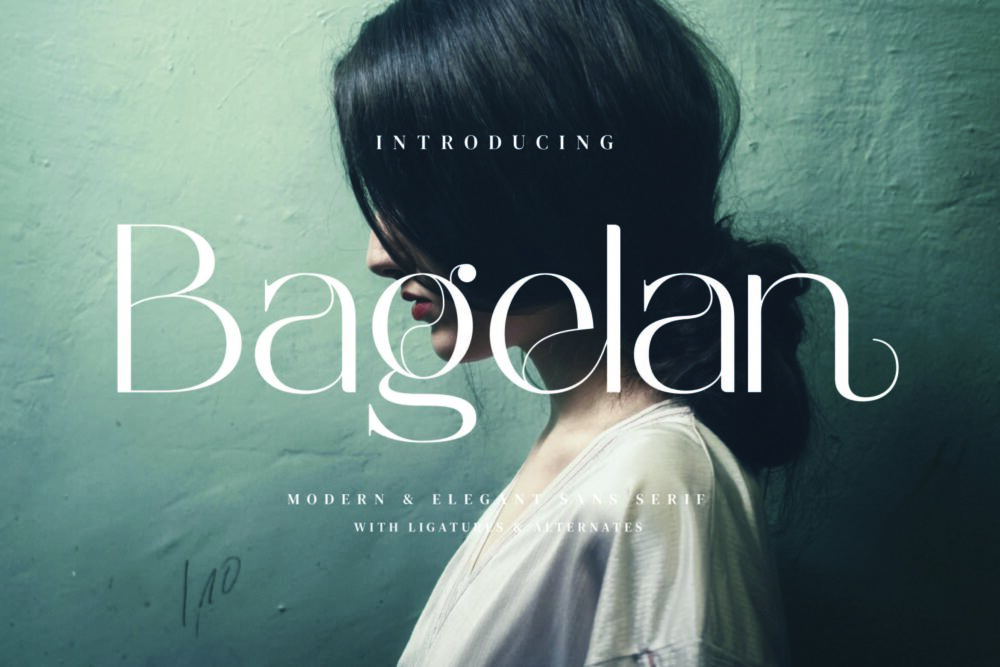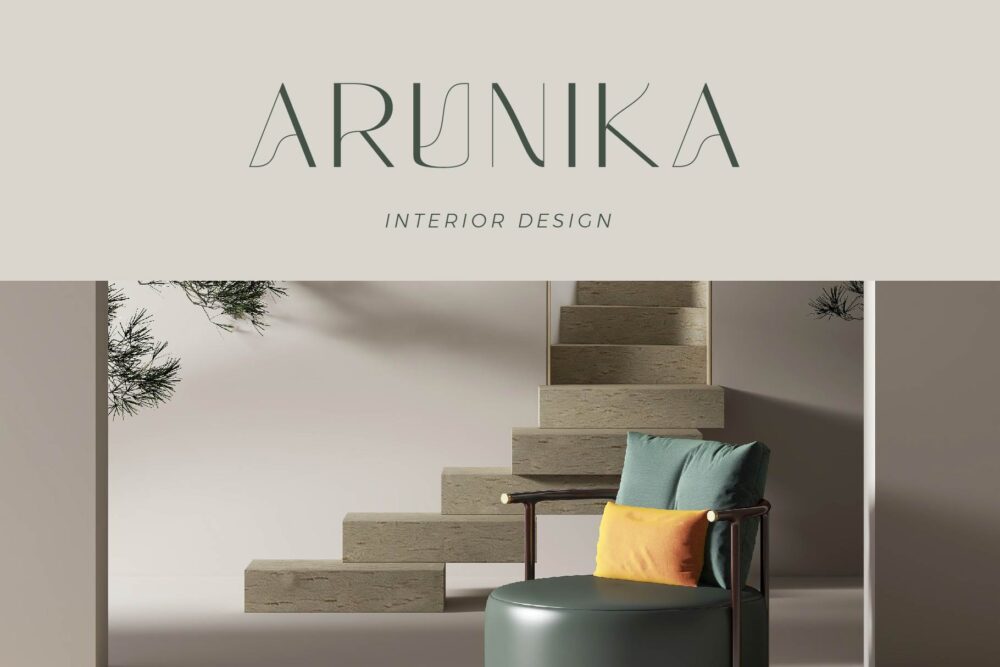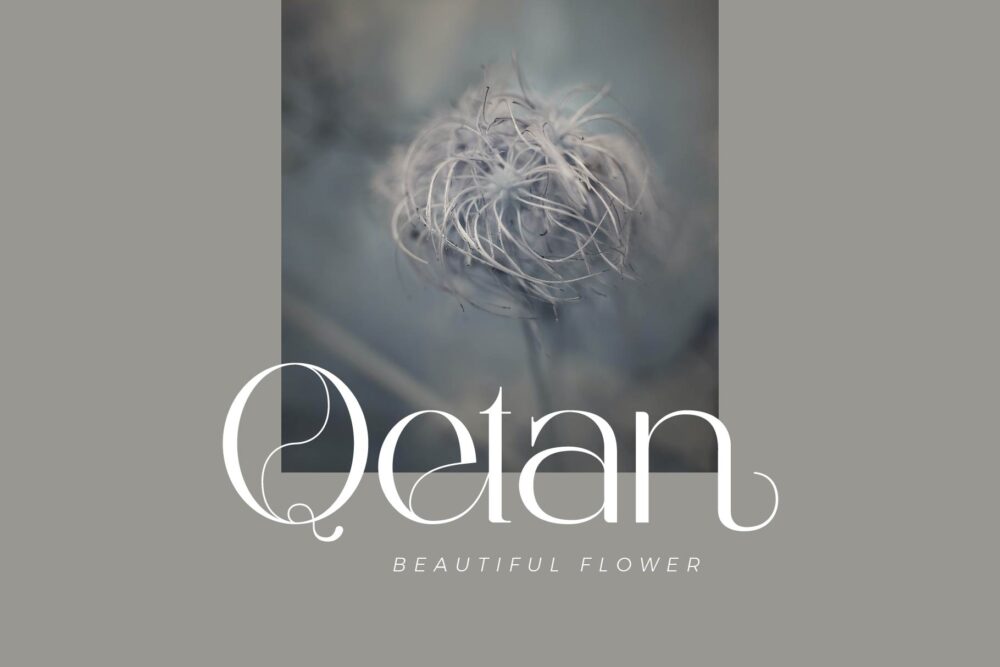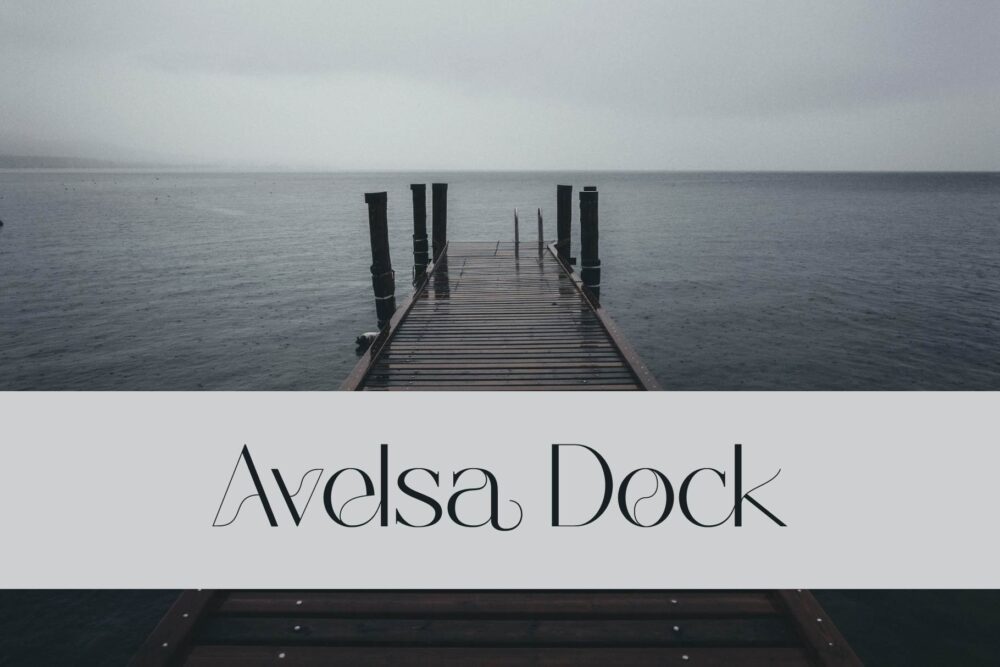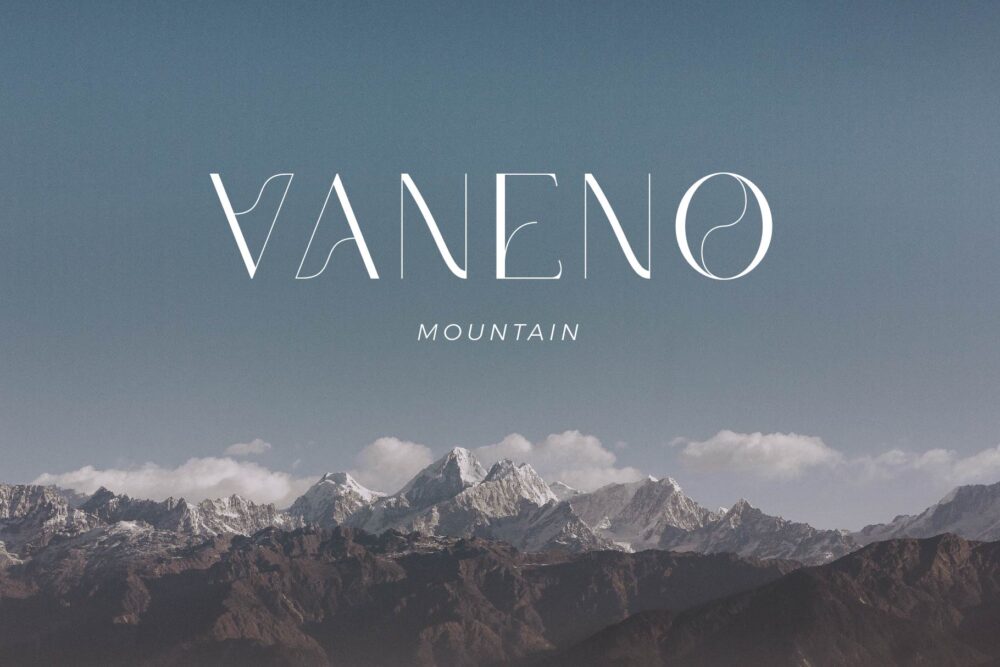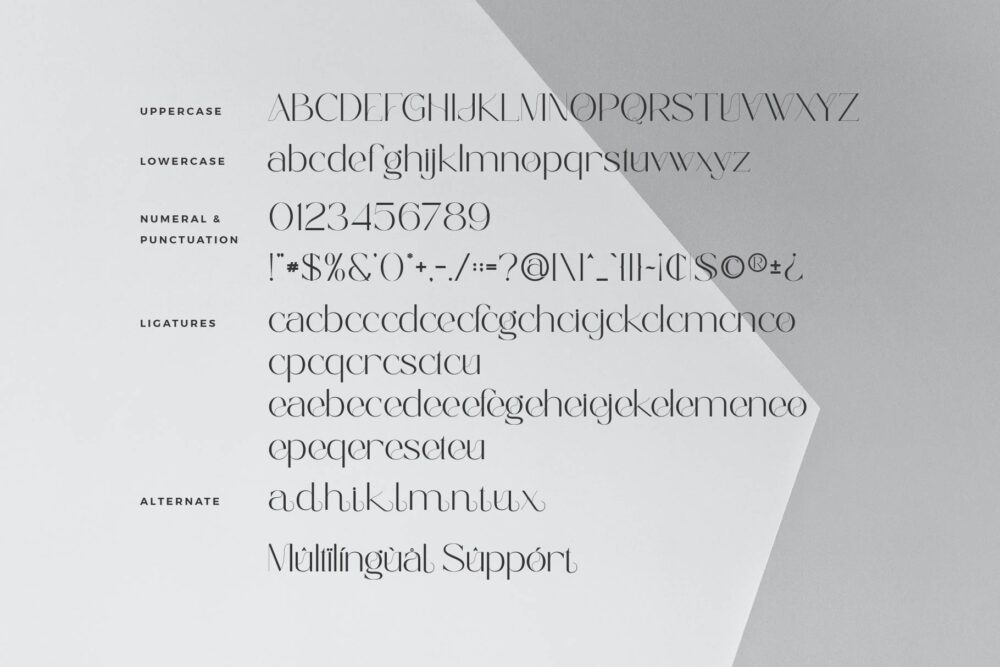
Bagelan
Bagelan Sans Font Typeface inspired by the famous minimalist logo perfect for the purposes of designing templates, brochures, videos, advertising branding, logos, invitation, layout design, elegant crafting, beauty design and other.
Bagelan – Modern Sans Serif Font